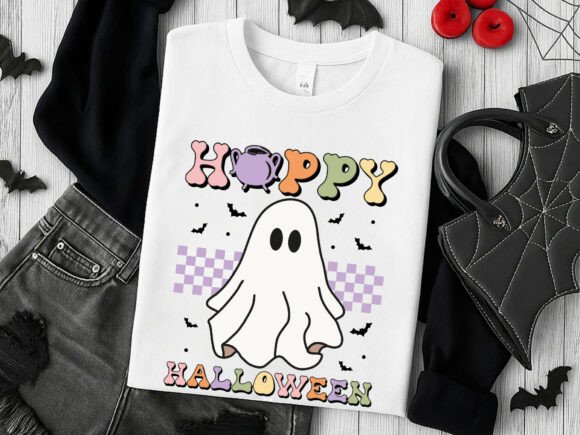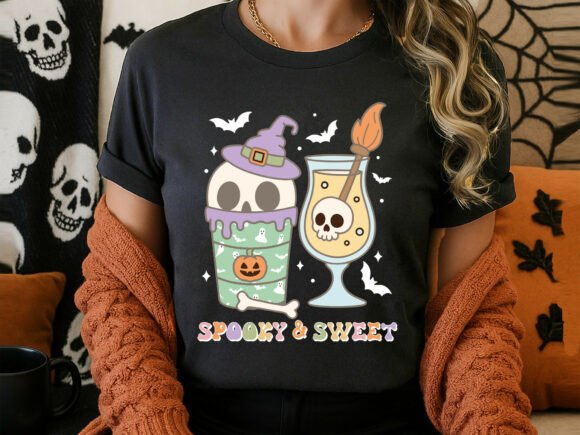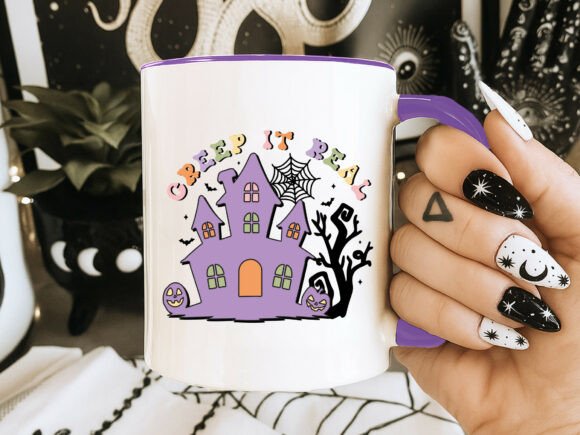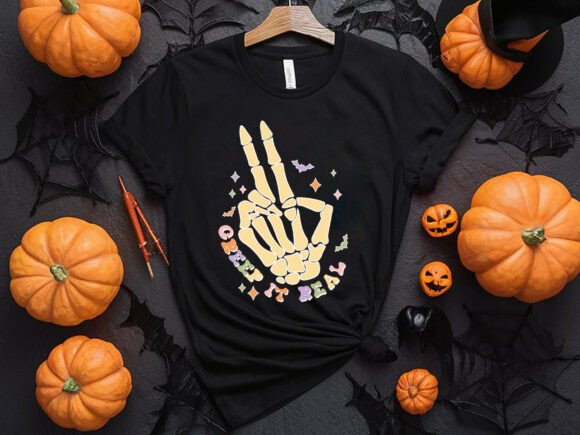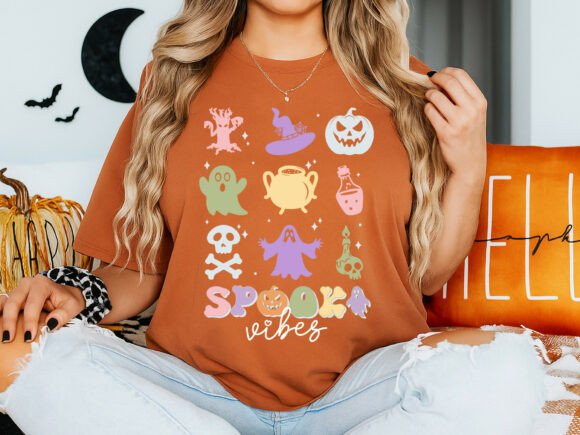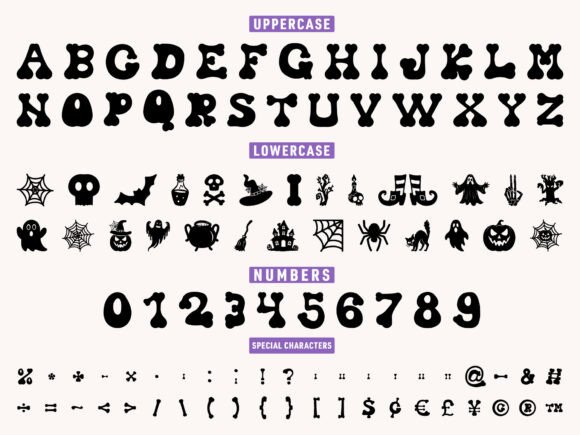
The Groovy Ghost Font: A Spook-tacular Addition to Your Design Toolkit
As designers, we’ve all been there – stuck on a project, searching for that perfect font to bring our vision to life. I recall working on a Halloween-themed design project last year, and I was on the hunt for a font that would capture the playful, retro essence of the holiday. That’s when I stumbled upon the Groovy Ghost font, and let me tell you, it was love at first sight! 🎃
Groovy Ghost is a cute and playful retro Halloween decorative font that’s perfect for various projects, from blog posts and logos to t-shirts and decorations. In this article, we’ll dive into the world of Groovy Ghost, exploring its features, how to use it, and some similar fonts you might enjoy.
So, what makes Groovy Ghost so special? Here are a few things I love about this font:
- ✨ Playful and whimsical: Groovy Ghost has a unique, retro charm that’s perfect for Halloween-themed designs.
- ✅ Versatile: This font can be used for a wide range of projects, from digital designs to print materials.
- 🌈 Colorful: Groovy Ghost comes in a variety of colors, making it easy to match your brand’s aesthetic.
Now, no font is perfect, and Groovy Ghost has a few quirks:
- 🤔 Limited use outside of Halloween: While Groovy Ghost is amazing for Halloween-themed designs, it might not be the best choice for other projects.
- ⚠️ Glyph limitations: Some users have reported issues with certain glyphs not displaying correctly.
The Groovy Ghost font was inspired by the retro aesthetic of the 1970s and 1980s. The designer, who wishes to remain anonymous, was inspired by vintage Halloween decorations and wanted to create a font that captured the playful, spooky spirit of the holiday.
- Q: What type of projects is Groovy Ghost best suited for?
- A: Groovy Ghost is perfect for Halloween-themed designs, such as blog posts, logos, t-shirts, and decorations.
- Q: Is Groovy Ghost available in different languages?
- A: Groovy Ghost is available in English, but some users have reported issues with non-English characters.